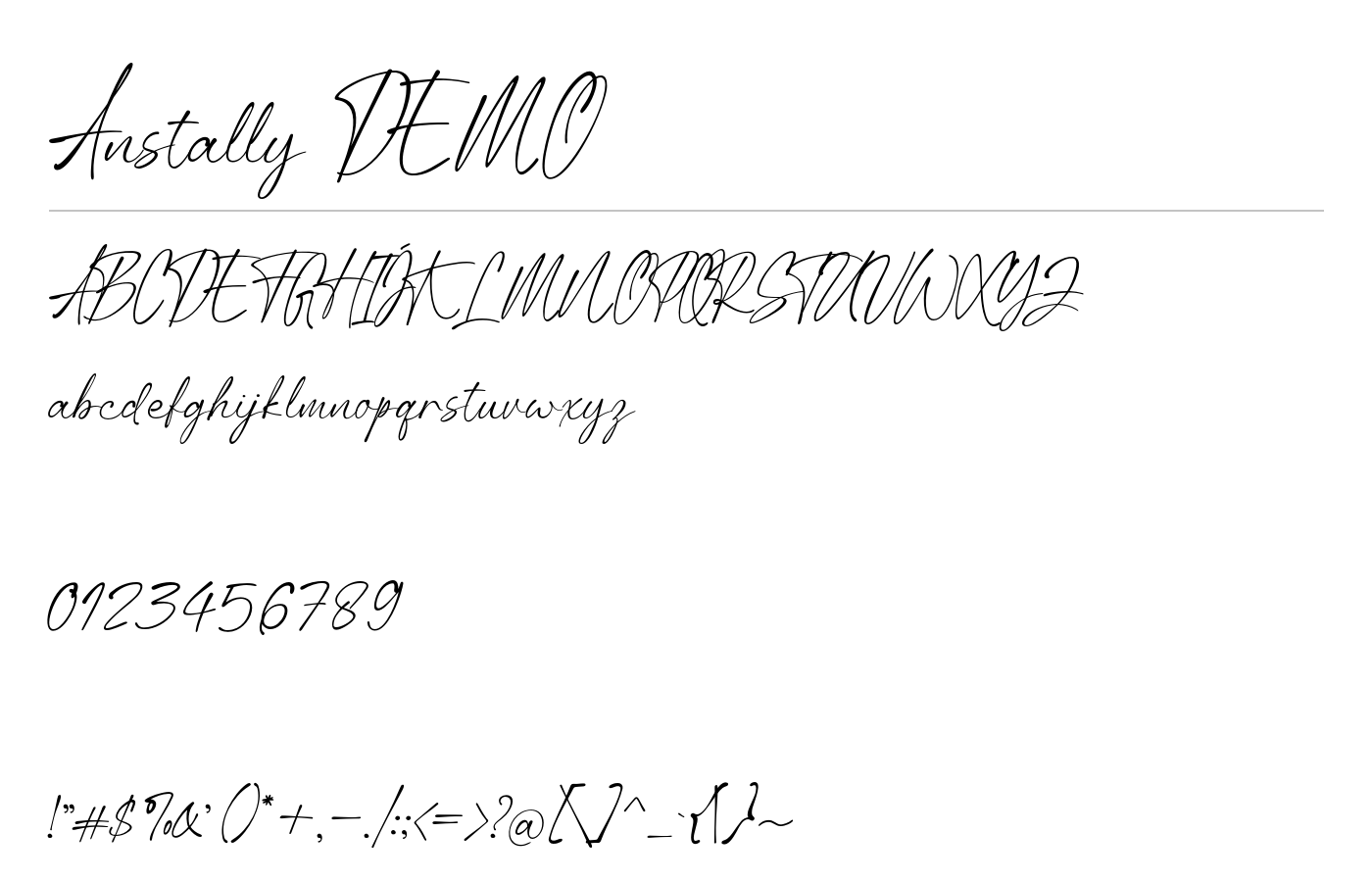
Anstally DEMO is a delicate, handwritten script font with a light, airy feel characterized by thin, flowing strokes and elegant letterforms. Its casual yet sophisticated style makes it perfect for personal branding, invitations, and editorial projects that seek a creative, intimate touch. This font works best in headline or decorative use where its unique, artistic flair can stand out and add personality.
Anstally DEMO Font